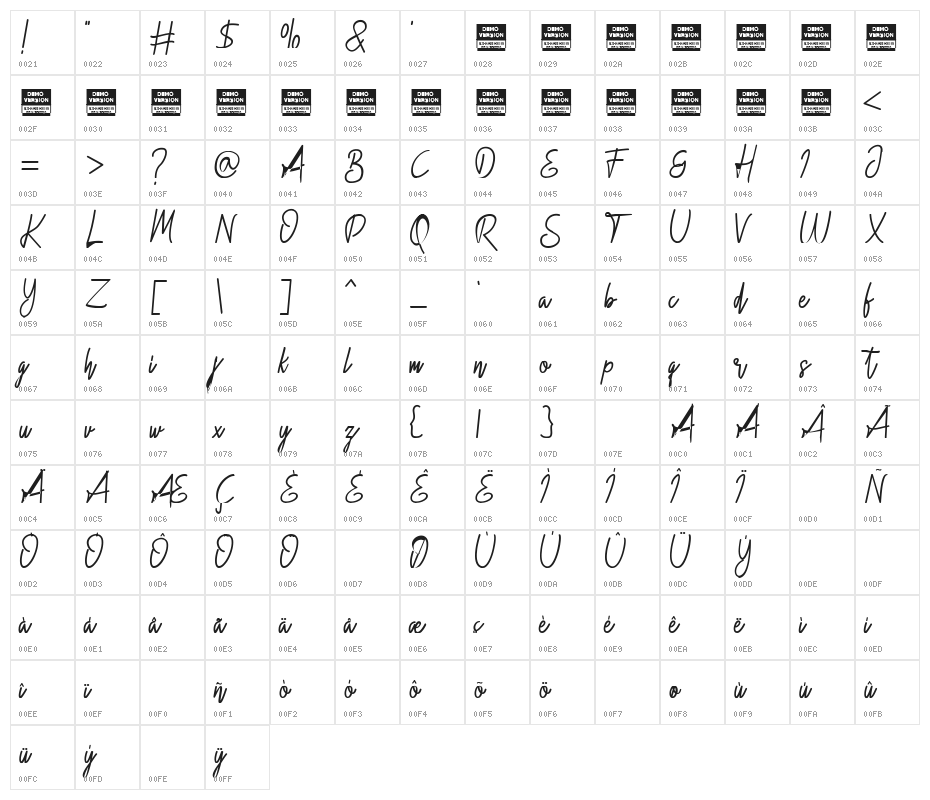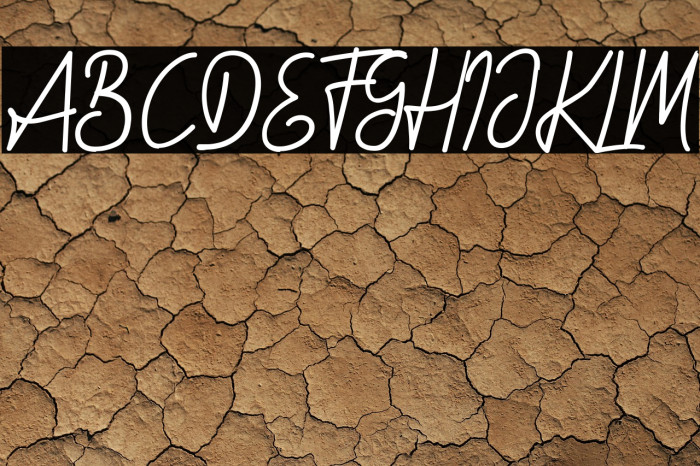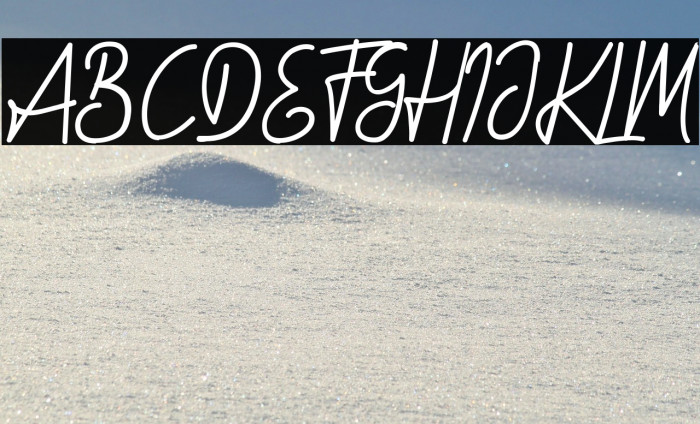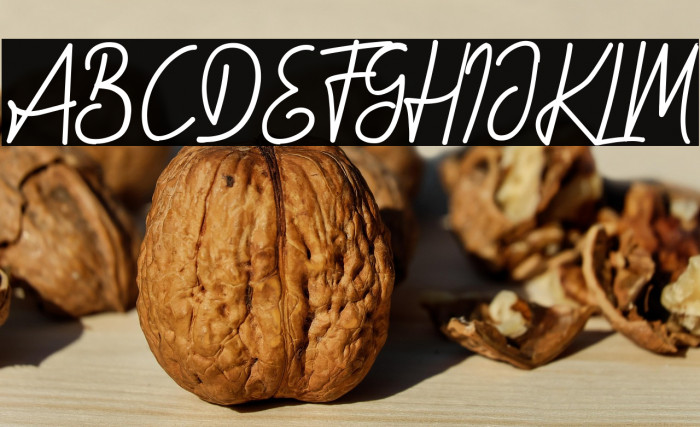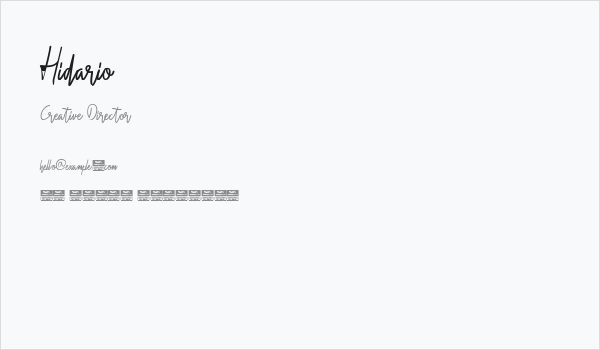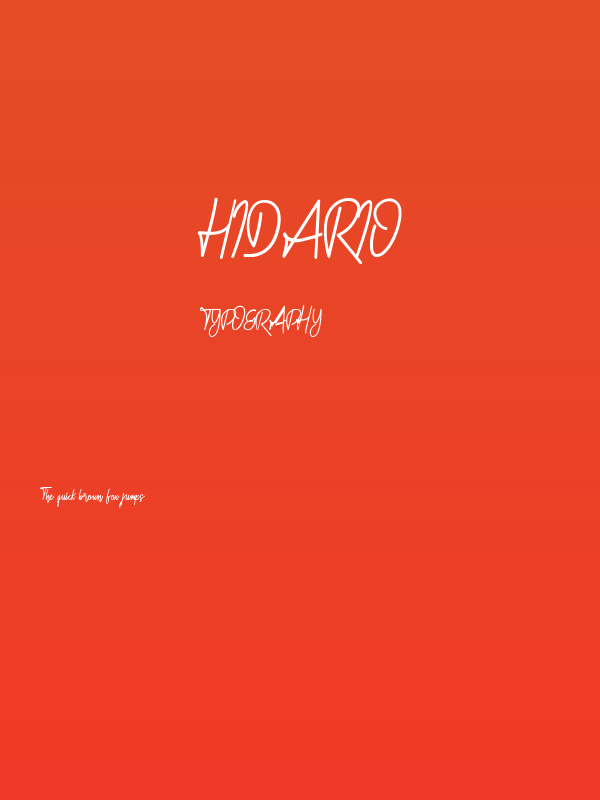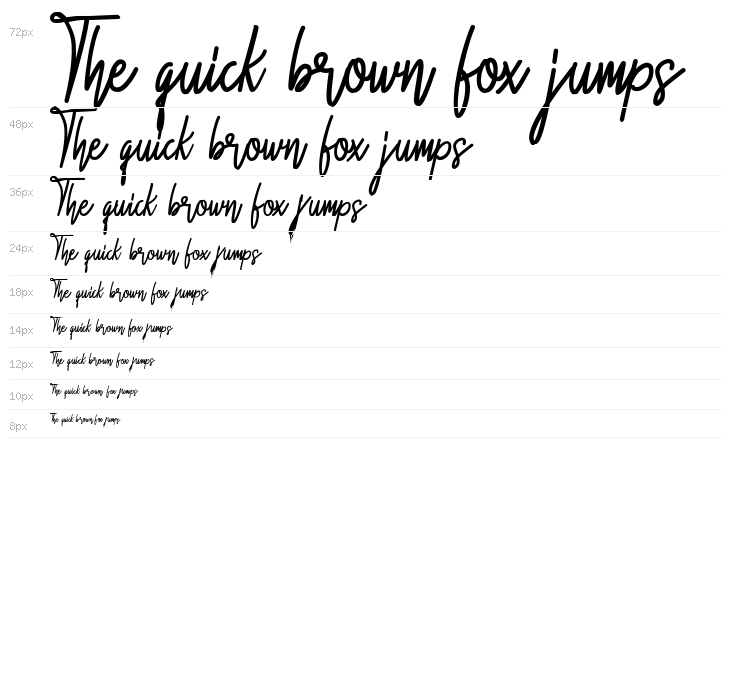
Hidario Font
Hidario Description
This font features a dynamic and fluid handwritten style, characterized by its elegant and flowing letterforms. The uppercase letters are tall and slender, with a slight slant that adds a sense of motion and grace. The lowercase letters maintain a consistent style, with smooth curves and a natural, cursive flow. The numbers and special characters complement the overall design, maintaining the same handwritten aesthetic. This font exudes a personal and artistic touch, making it ideal for projects that require a humanistic and approachable feel.
| Proposed Projects | Ideal for wedding invitations, personal branding, greeting cards, and artistic projects that require a personal touch. |